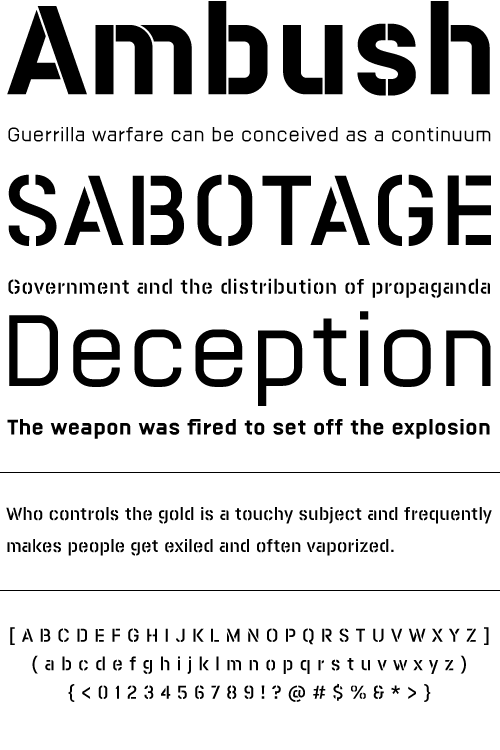
Mercado
Mercado is an original stencil/sans font family with 3 weights and includes uppercase, lowercase, and a large international character set. Many stencil styles that are already out there don't even have lowercase, not to mention multiple weights. I set out to design a versatile stencil font family which gives the designer more options than were previously available. I named the font Mercado as I was inspired by the local stores in my neighborhood and how they always tend to have interesting stencil lettering somewhere on the premises. Year Designed: 2005 Weights: Light, Regular, Bold, Display Light, Display Regular, Display Bold, Sans Light, Sans Regular, Sans Bold Formats Available: Windows TrueType Macintosh PostScript Price: Complete Family - $119.95 USD Regular Family - $49.95 USD Display Family - $49.95 USD Sans Family - $49.95 USD Single weight - $19.95 USD Purchase Now: MyFonts.com YouWorkForThem - Regular YouWorkForThem - Display YouWorkForThem - Sans |